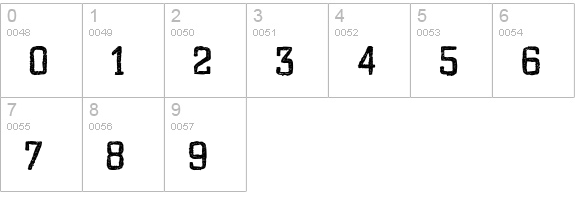
Varsity Playbook Font Details
The Varsity Playbook font is a stunning display typeface that captures the essence of classic sports typography. With its bold and energetic letterforms, this font is perfect for adding a touch of athletic flair to your designs. Designed with meticulous attention to detail, Varsity Playbook features strong, clean lines that give it a sense of power and authority. Each letter is carefully crafted to exude a sense of athleticism and team spirit, making it an ideal choice for sports-related projects. What sets Varsity Playbook apart is that it is not only visually appealing, but also freely available to download. That's right, this incredible font can be yours at no cost. Thanks to the generosity of FontsMarket.com, you can easily access and enjoy this font without breaking the bank. Whether you're designing a sports team logo, a poster for a championship game, or even a school yearbook, Varsity Playbook will certainly elevate your design to the next level. Its versatility and boldness make it a standout choice that will effectively capture the attention of any audience. So why wait? Download Varsity Playbook font today from FontsMarket.com and unleash your creativity with this incredible free typeface. Embrace the power of sports typography and create designs that truly make a statement.